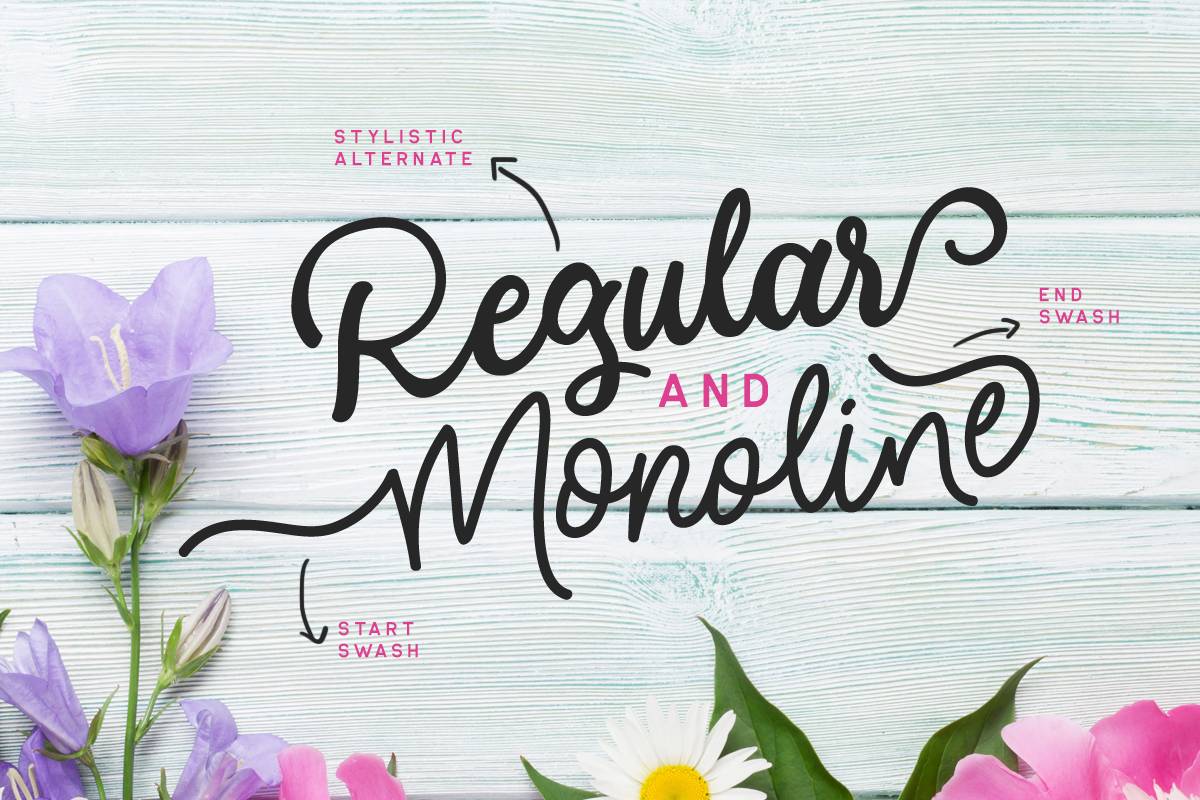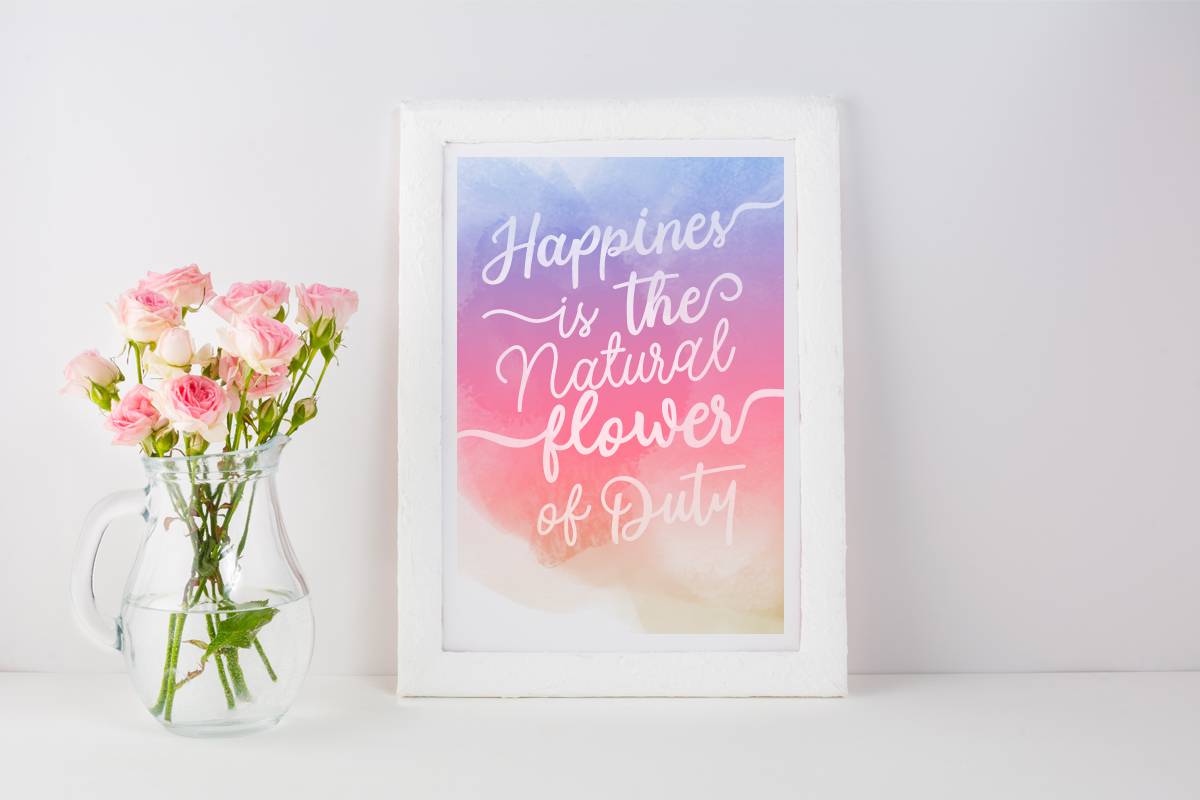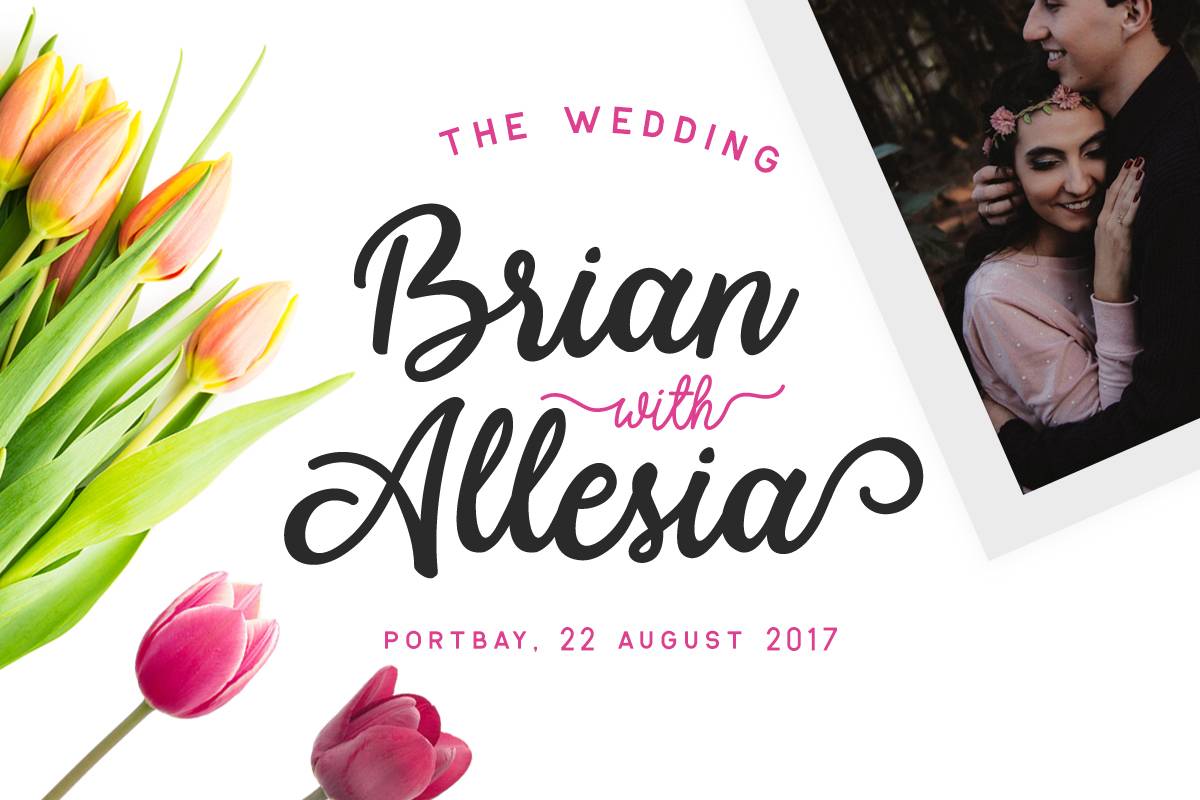
Modesta Script is a graceful and flowing handwritten font that combines elegance with readability. Its smooth, medium-weight strokes and slightly condensed letterforms create a refined yet approachable feel, making it ideal for invitations, branding, and editorial design where a touch of sophistication and charm is desired. This font’s stylish curves and balanced structure lend it a versatile, modern personality perfect for fashion, luxury, and creative projects.
Modesta Script Font
About Modesta Script Font
| Font family | Modesta Script Font |